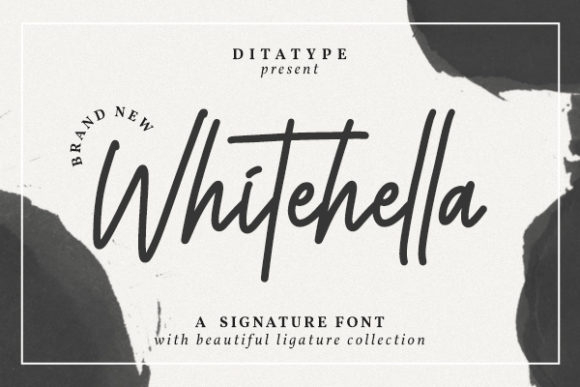
Prepare to be captivated by Whitehella Font, a charming and modern handwritten font that exudes an aura of warmth and friendliness. Its delicate strokes and playful curves will add a touch of elegance and whimsy to your creative projects, making them stand out from the ordinary.
With its stunning swashes and ligatures, Whitehella is a versatile font that effortlessly adapts to a wide range of applications. Unleash your creativity and bring your ideas to life, whether it's designing logos, crafting social media posts, creating eye-catching invitations, or adding a personal touch to your business documents. The possibilities are truly endless.
Whitehella is the perfect choice for those seeking a font that captures the essence of charm and sophistication. Its friendly demeanor invites readers to engage with your content, making it an ideal font for business plans, presentations, and other professional documents. It adds a touch of warmth and approachability, leaving a lasting impression on your audience.
But Whitehella's versatility extends beyond the realm of professionalism. It's also an excellent choice for personal projects, such as designing greeting cards, invitations, and posters. Its playful nature adds a touch of fun and personality, making it perfect for expressing your creativity and connecting with loved ones in a unique and meaningful way.
Step into the world of Whitehella and embark on a creative journey that knows no bounds. Let your imagination soar as you explore the endless possibilities of this exquisite font, transforming your ideas into breathtaking works of art. From business plans to personal projects, Whitehella will leave an indelible mark, captivating hearts and inspiring minds.